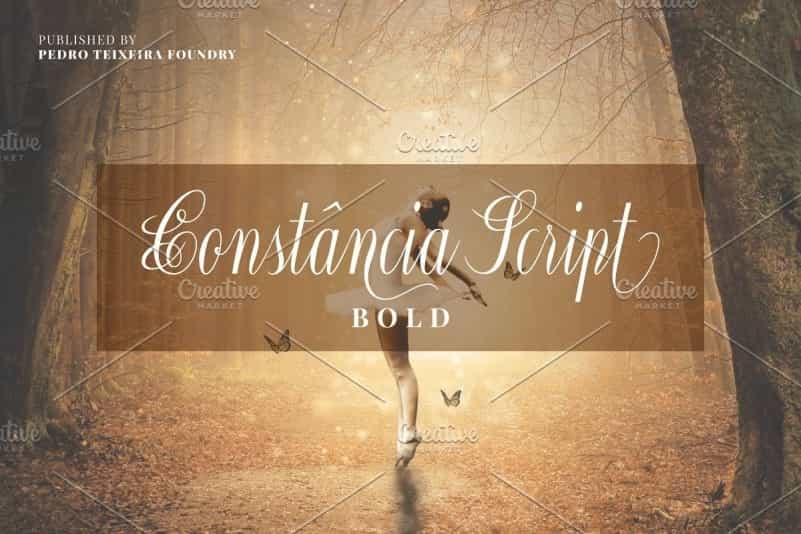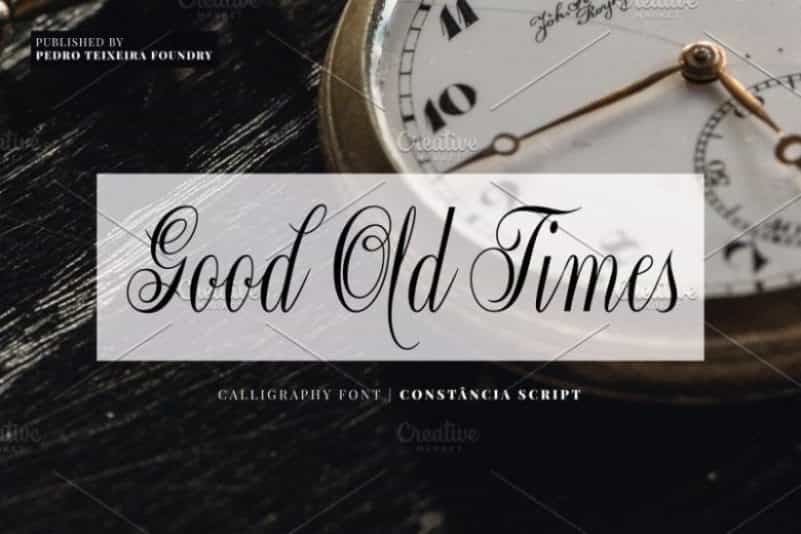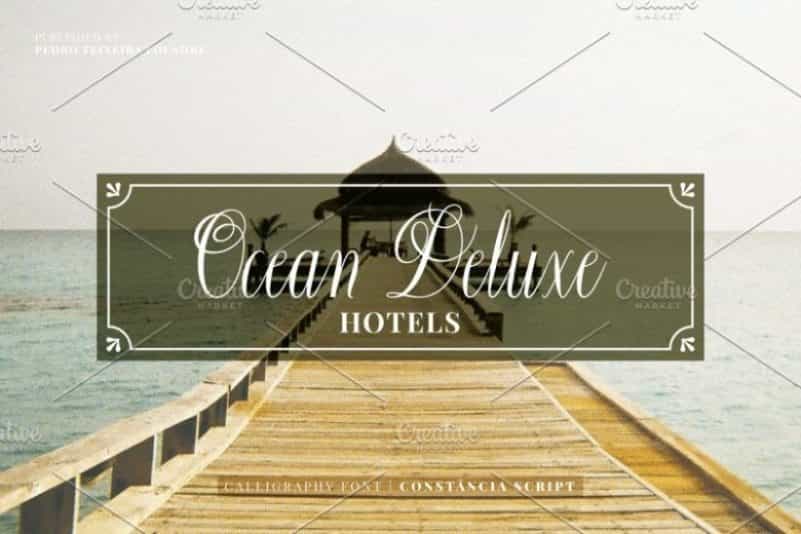
Constancia is an elegant and timeless typeface for calligraphy. The unique, elegant and legible script is perfect to use for logos, posters and headlines, invitations and cards and other display requirements. This is ideal for signatures, invitations blogs as well as social media business cards, and other product brands.